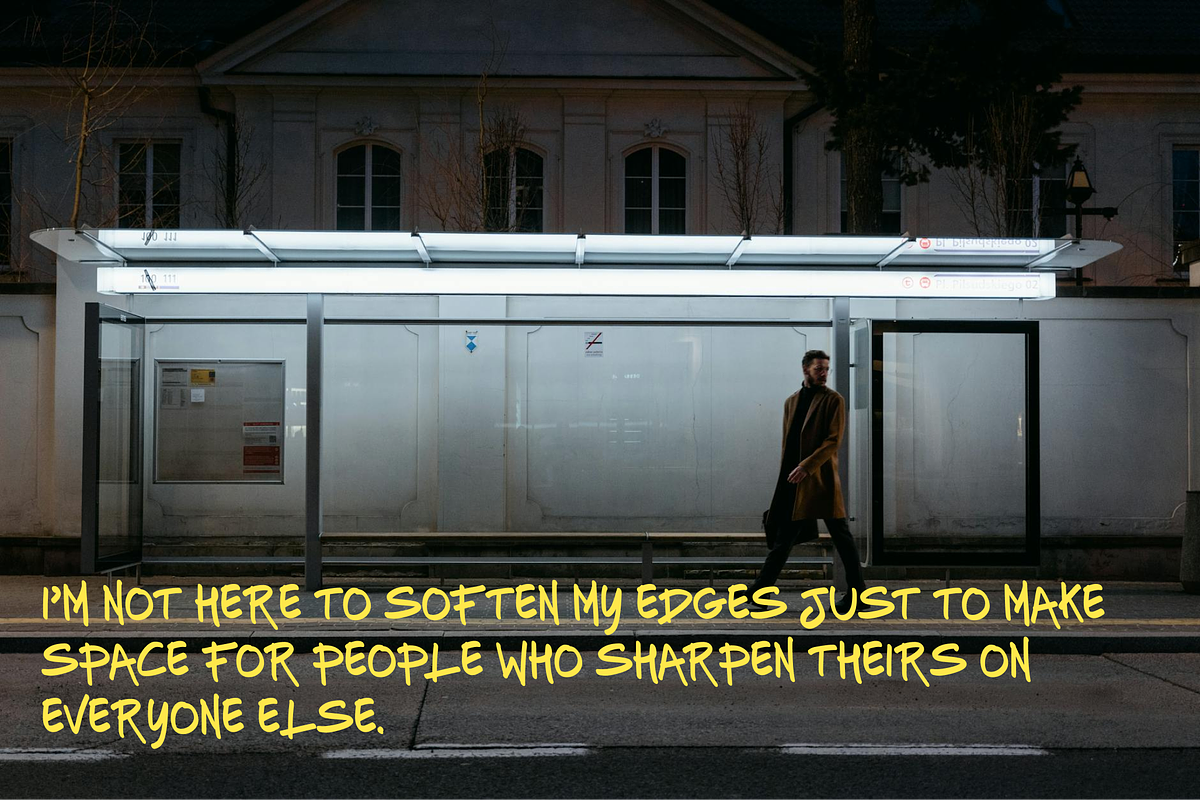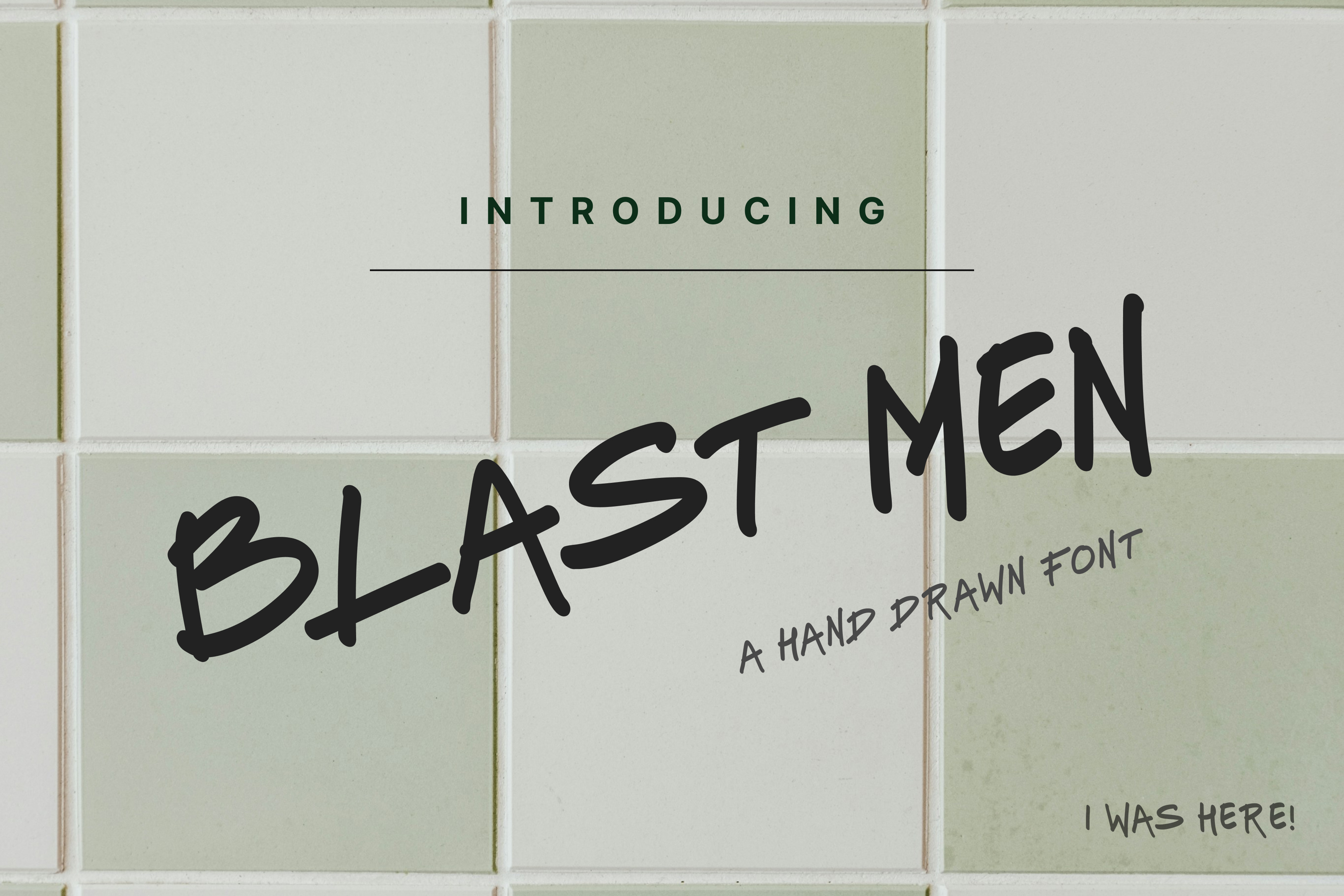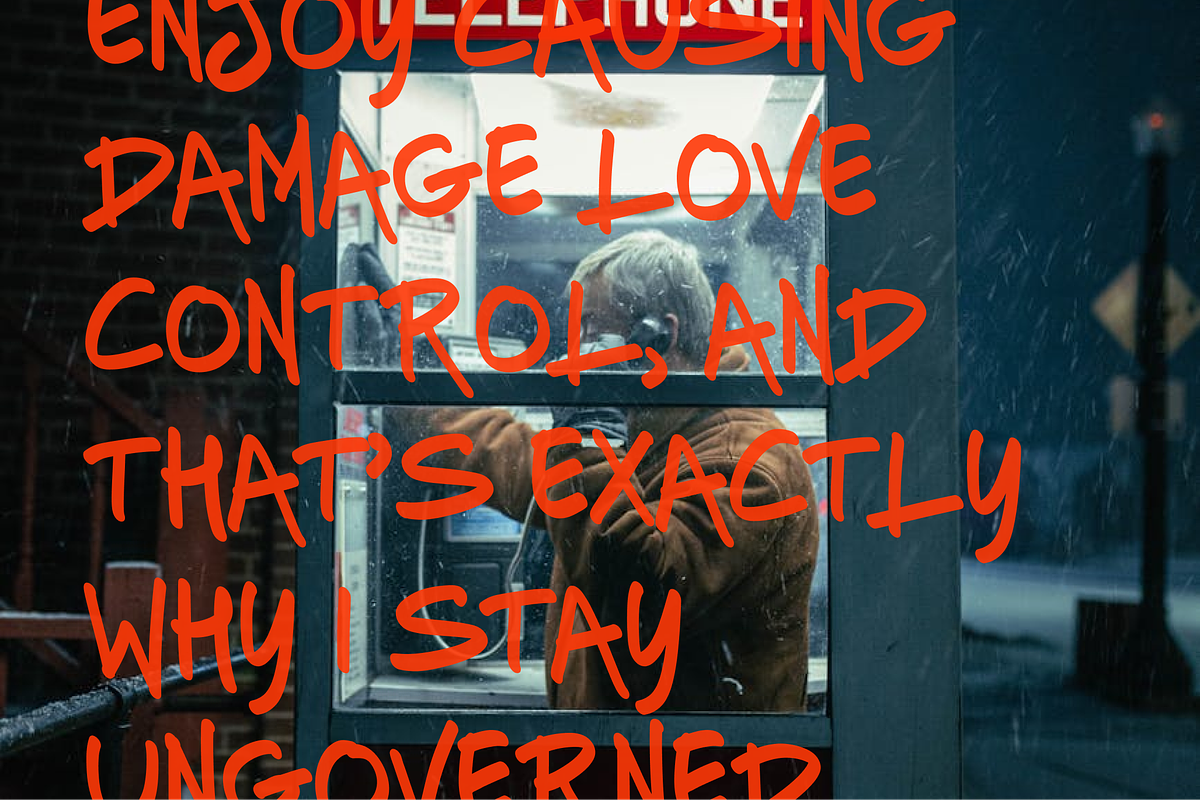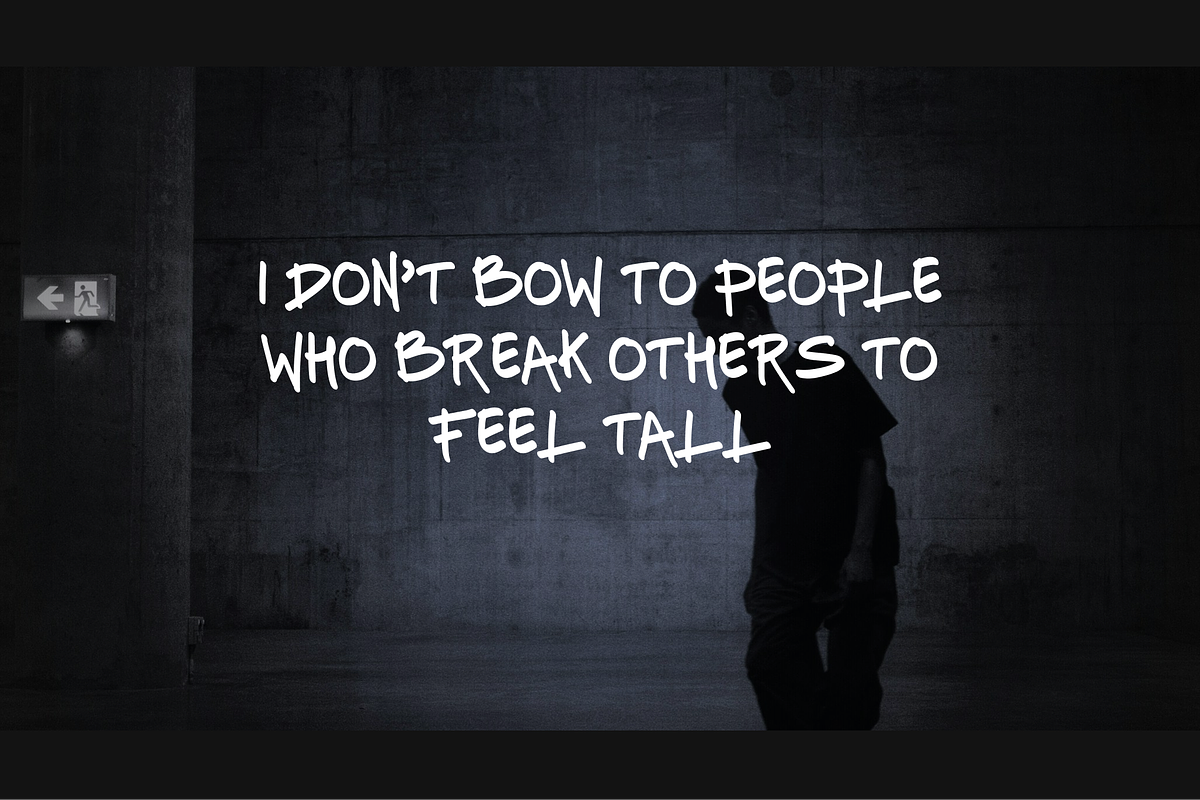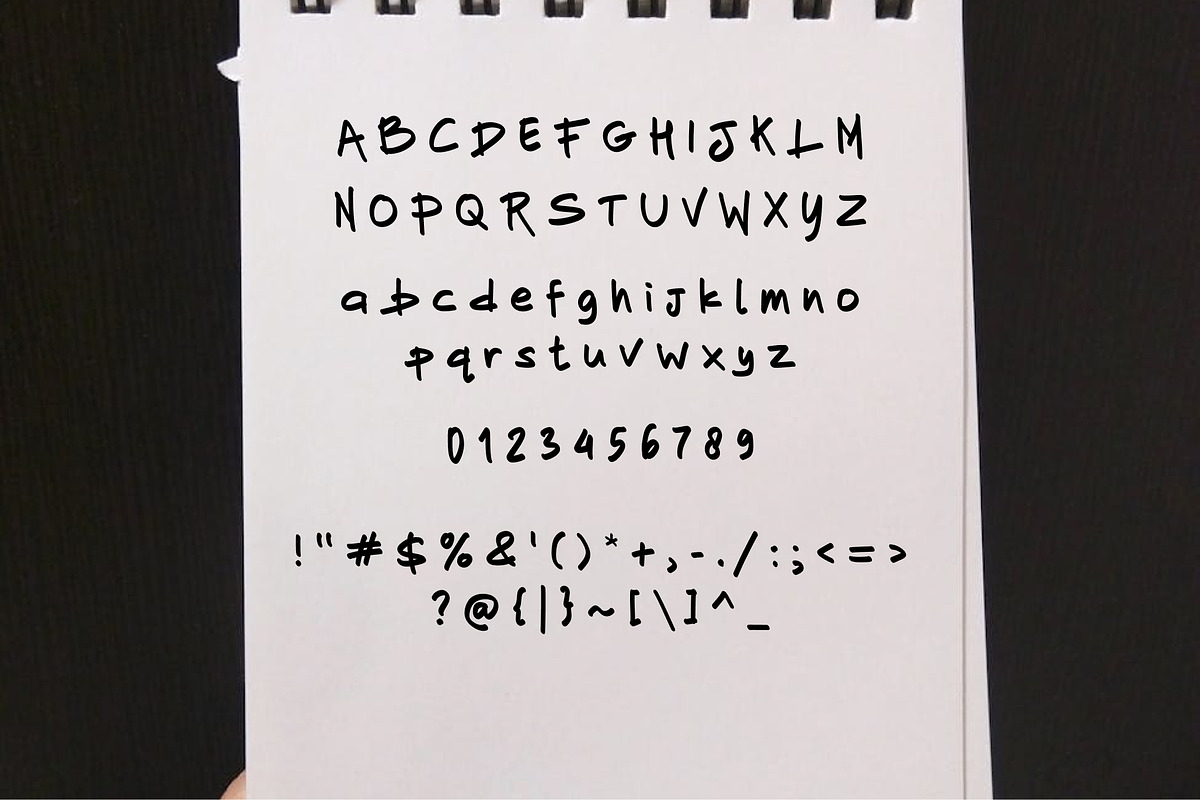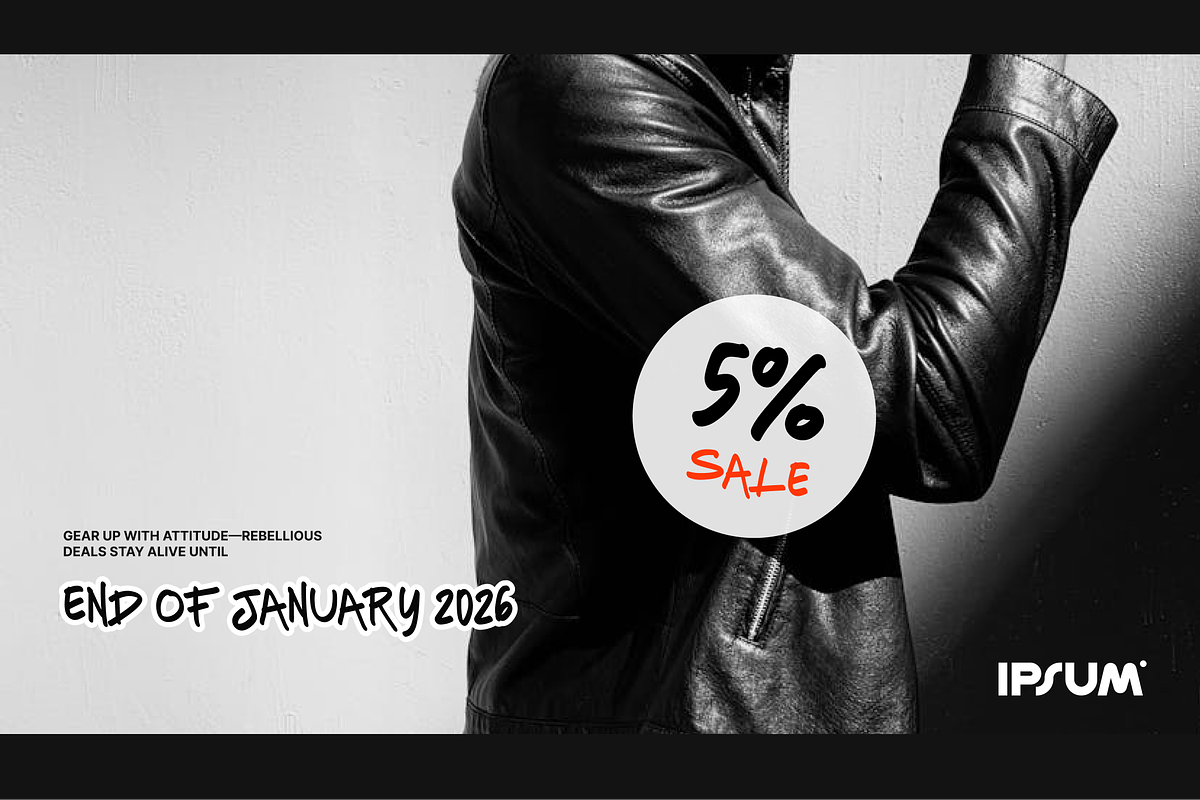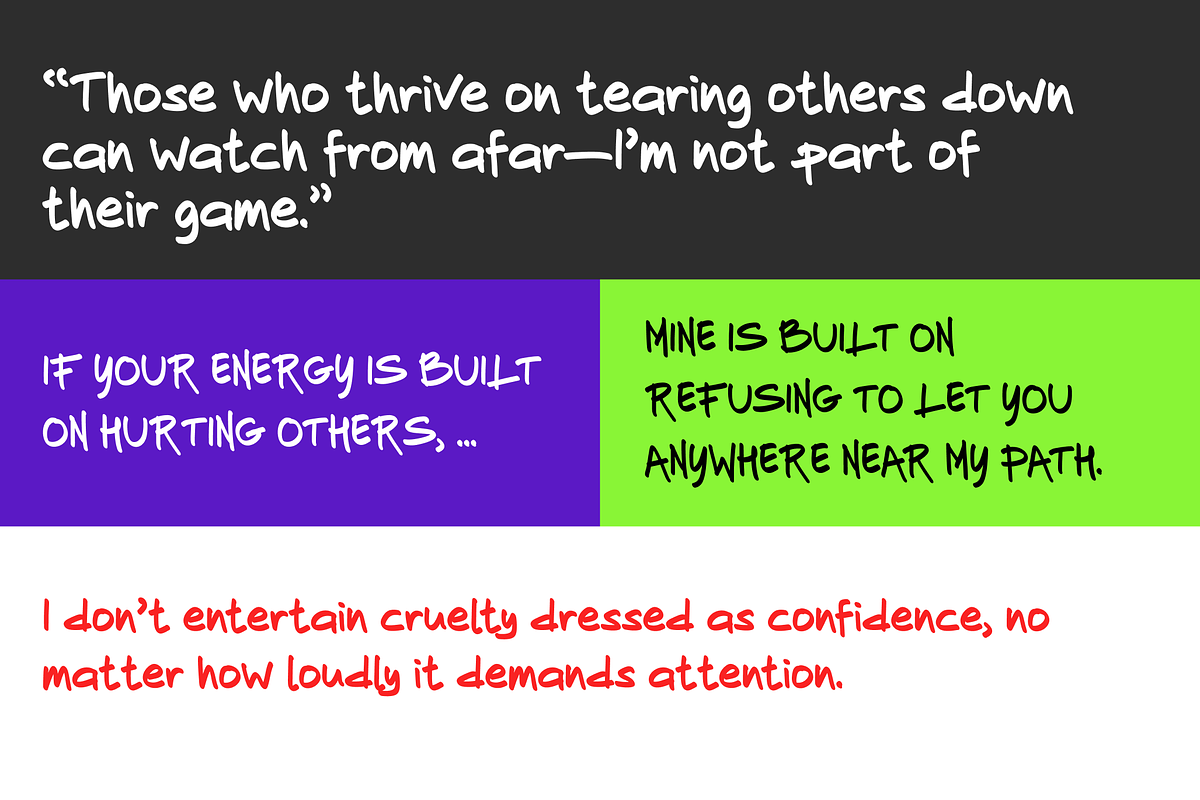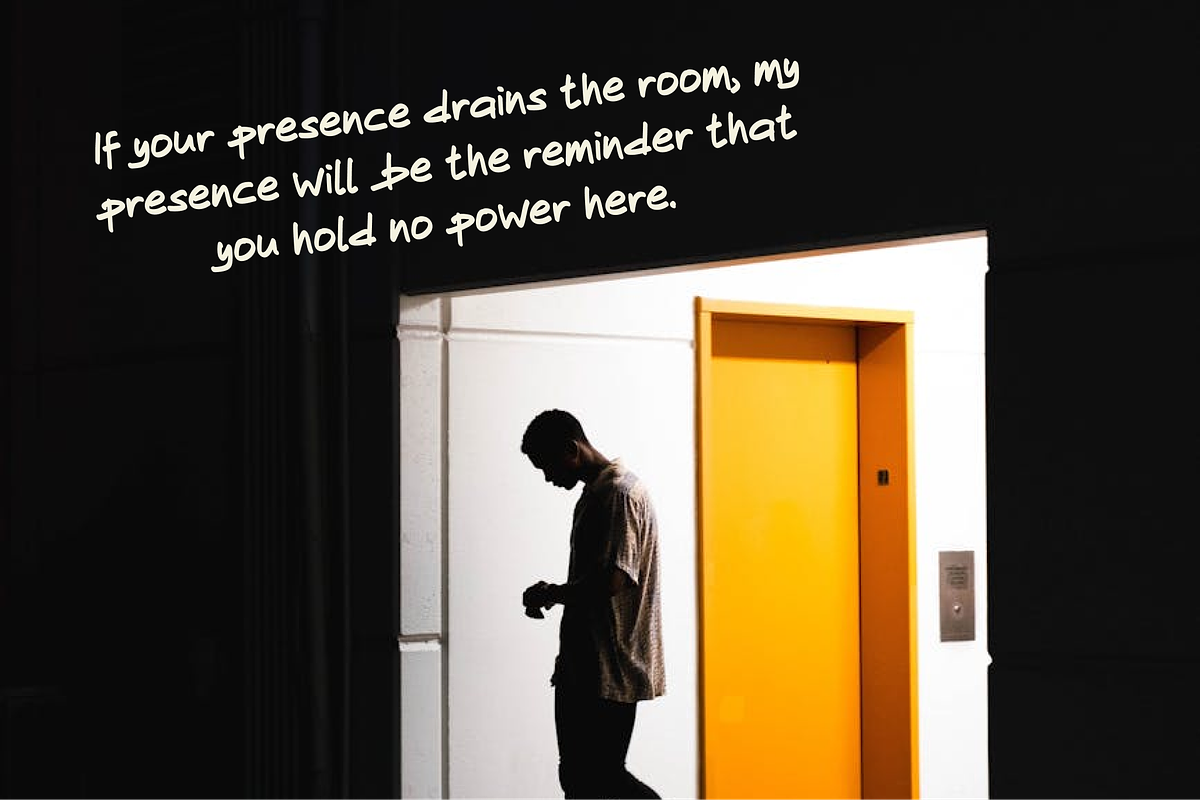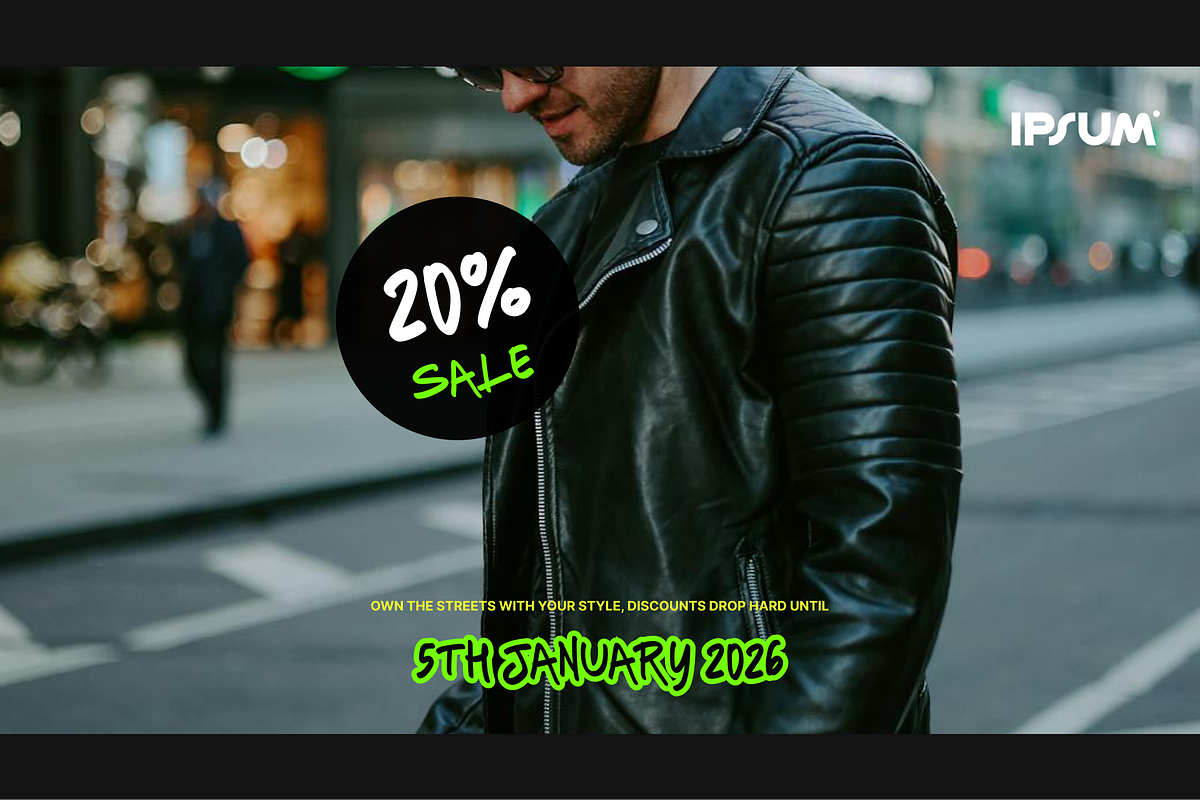
Blast Men – Handwritten Marker Font
BLAST MEN is a handwritten marker font crafted for designers who want raw attitude, bold strokes, and unapologetic character. Built with a rebel youth aesthetic, this typeface delivers an expressive, tough, and rule-breaking style—perfect for visuals that need to stand out with confidence.
With its rough yet controlled marker lines, BLAST MEN gives every word a powerful presence, as if it were written in one fearless motion across a city wall. It fits perfectly into projects with streetwear vibes, men’s fashion, urban posters, bold editorials, music covers, and striking quote designs.
Why Choose BLAST MEN?
Authentic handwritten marker style with raw, edgy personality
A strong rebel & bold vibe for statement visuals
Youthful, energetic strokes that feel spontaneous and expressive
Perfect for men’s fashion promotions and urban branding
Thick, impactful letters that stay readable while looking fierce
Works great on large posters, social media ads, apparel, and website headers